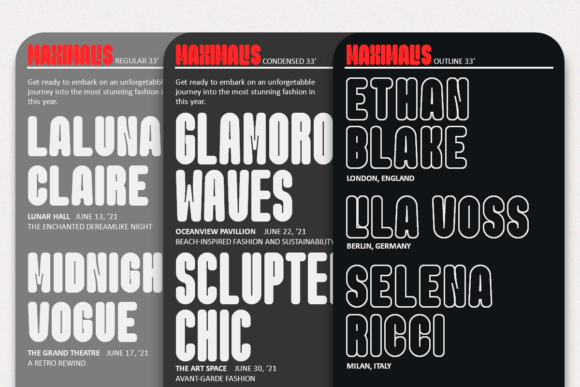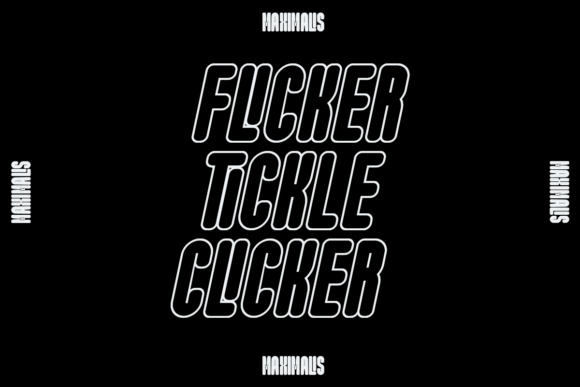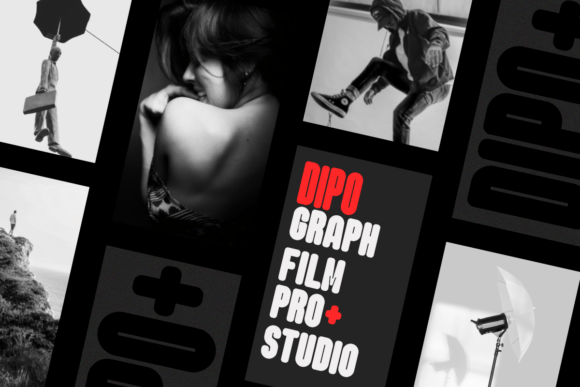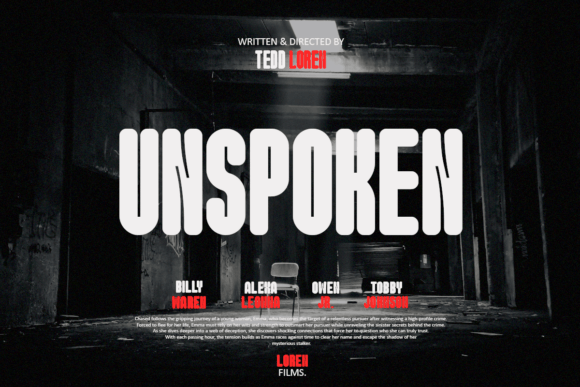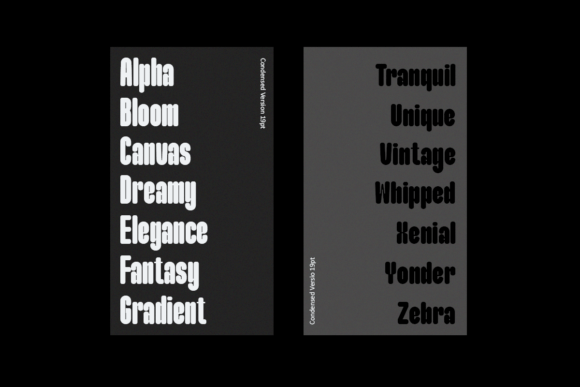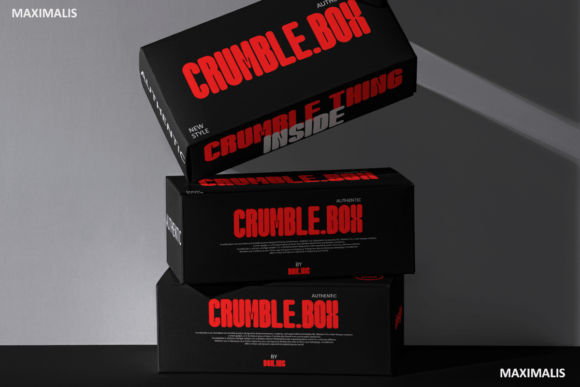
Introduction to Maximalis Font Font
Fonts play a crucial role in design, and the Maximalis Font font is a typeface that brings both character and versatility to any project. Whether you’re working on a branding project, a website, or a print design, the Maximalis Font font offers a unique style that can elevate your work.
Maximalis is a condensed sans-serif typeface created for use in bold headlines with distinctive shapes that make it a display font for easy reading in contemporary use.
Available in regular, condensed, outline, and italic styles, the shapes are easy to read and expressive Its glyph catalog provides an easy-to-compose system for Latin with a tall x-height and tight line spacing.
Key Features of Maximalis Font Font
Why Choose Maximalis Font Font?
The Maximalis Font font is more than just a typeface – it’s a design tool that helps you communicate your message with style and clarity. Its unique character set and versatile design make it suitable for a wide range of applications, from elegant invitations to bold headlines.
With its carefully crafted letterforms and balanced proportions, the Maximalis Font font ensures readability and visual appeal across all mediums.
What makes Maximalis Font font special?
The Maximalis Font font stands out with its unique design, exceptional readability, and versatility across various design applications.